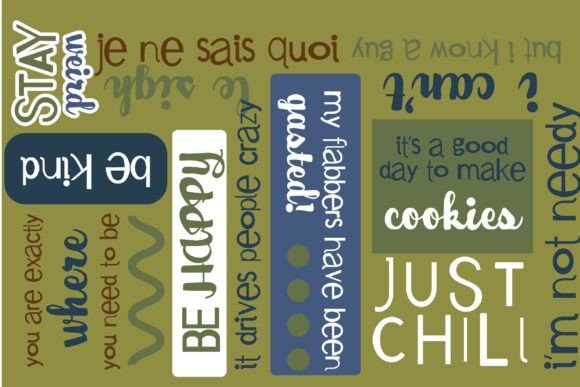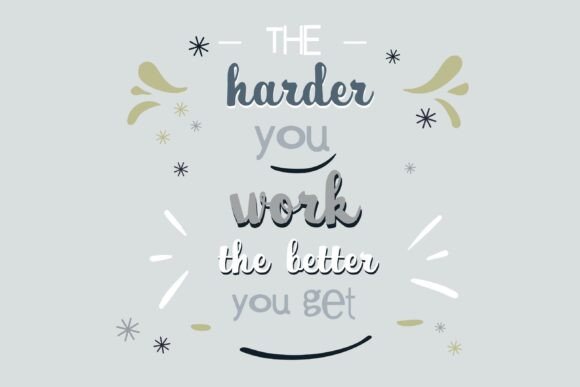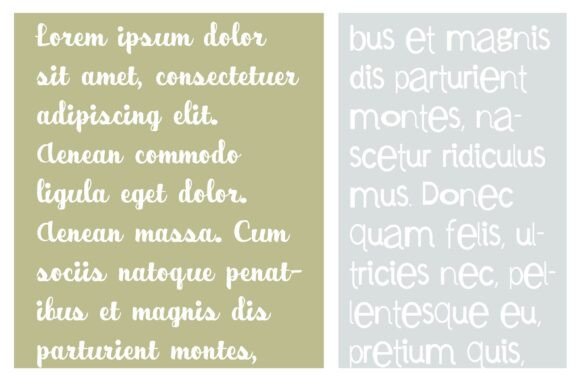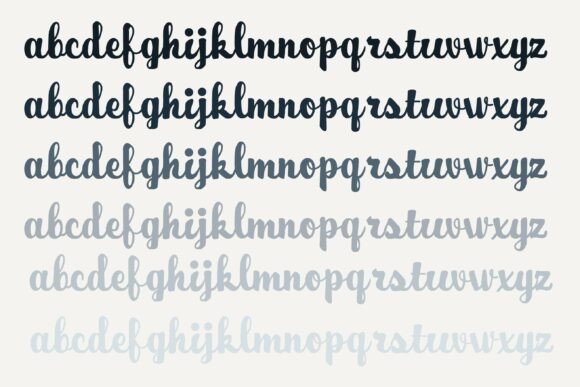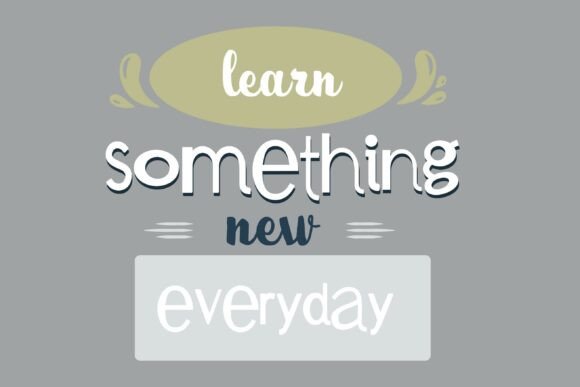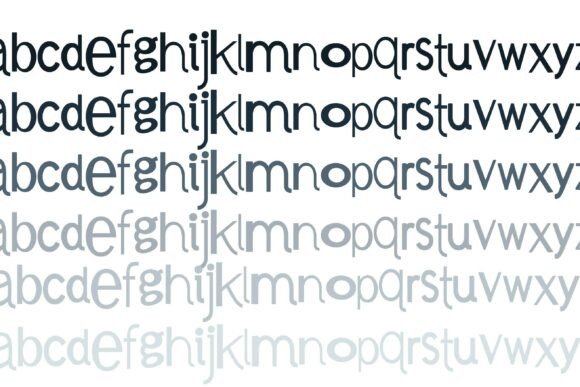
Home-cooked and Sanister Duo Font – Free Download
Introduction to Home-cooked and Sanister Duo Font
This cozy and creative font duo blends Home-cooked, a handwritten script full of warmth and charm, with Sanister, a playful sans serif with whimsical character.
Together, they bring a friendly, inviting vibe thatโs perfect for recipe cards, packaging, restaurant menus, or anything that needs a homemade feel Whether youโre designing for the kitchen or crafting heartfelt messages, this duo adds personality and charm with every letter.
Key Features of Home-cooked and Sanister Duo Font
Why Choose Home-cooked and Sanister Duo Font?